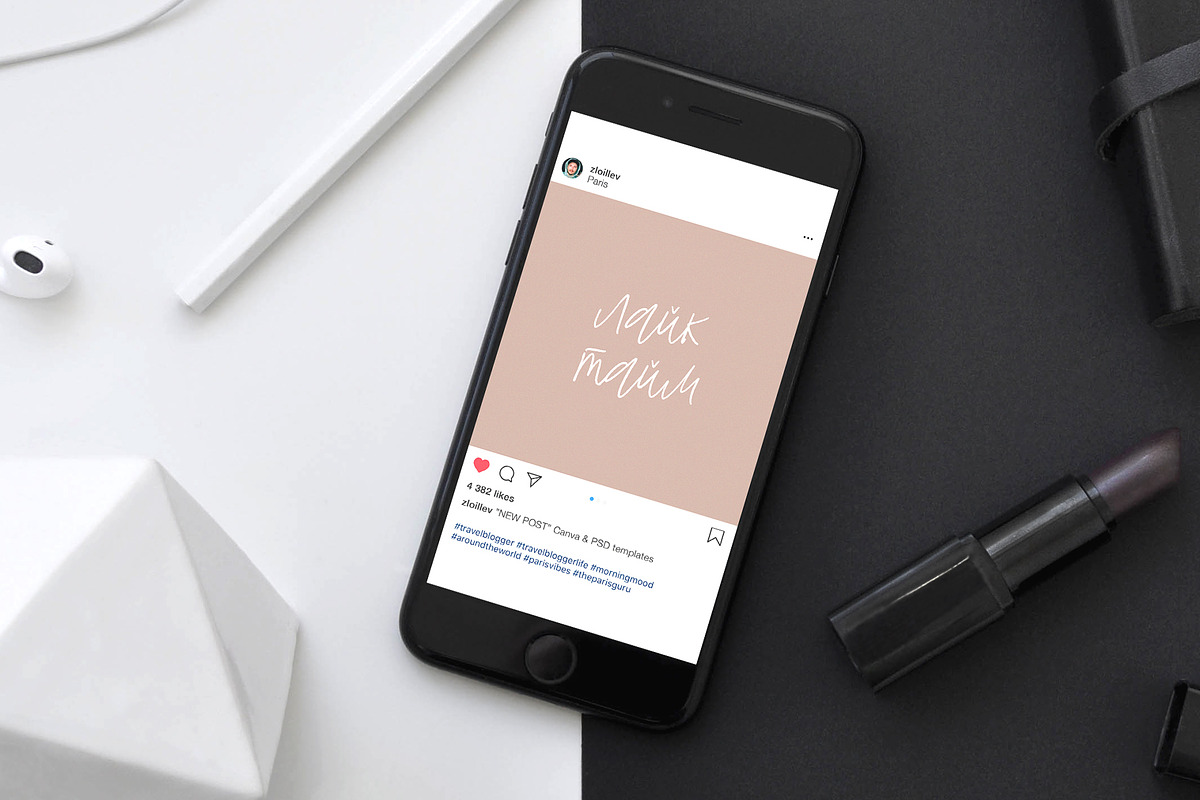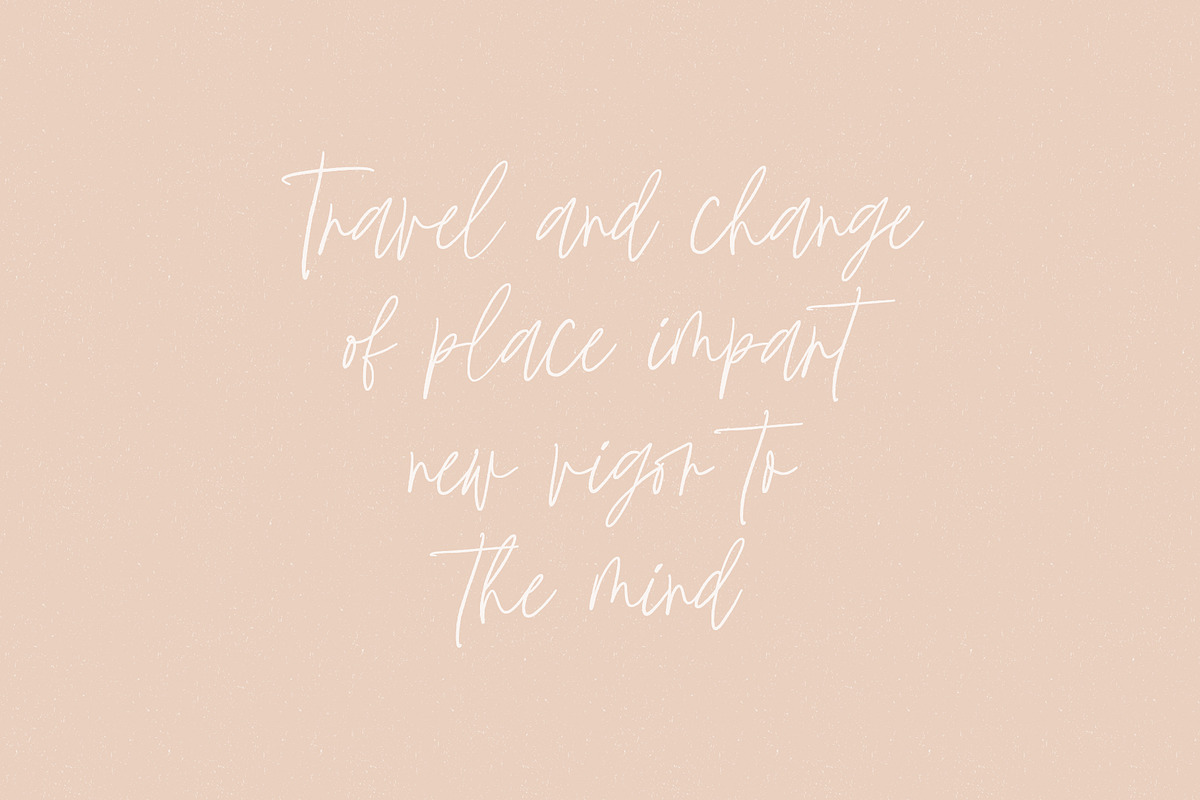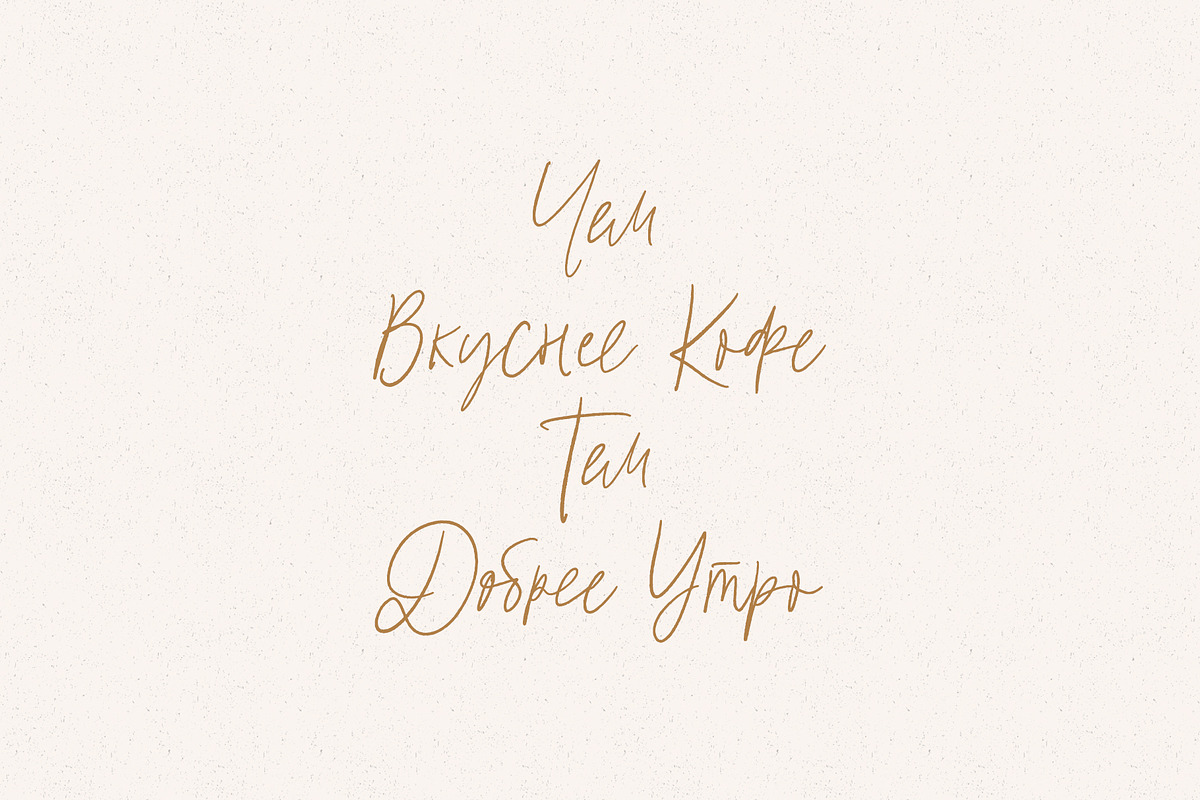
Mistique Touch Latin & Cyrillic
Mistique Touch Latin & Cyrillic it is a Lettering chick font with exquisite accents. It is perfect for branding, wedding invitations and invitation cards and many more
Font includes a full set of gorgeous uppercase and lowercase letters, numbers, a large selection of punctuation marks, ligatures & Cyrillic support
- Regular Script
- Latin languages support
- Cyrillic languages support